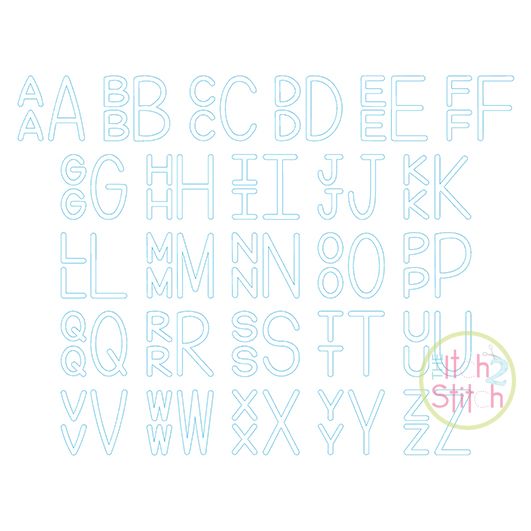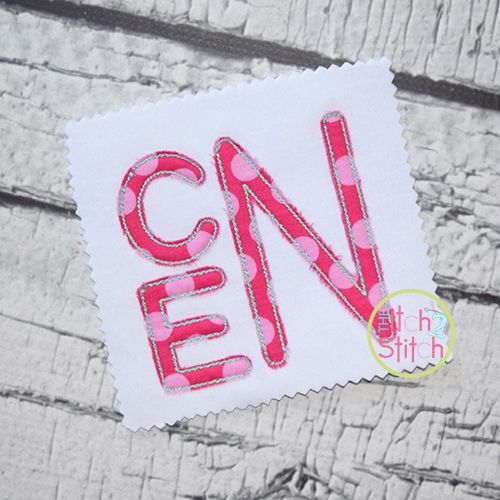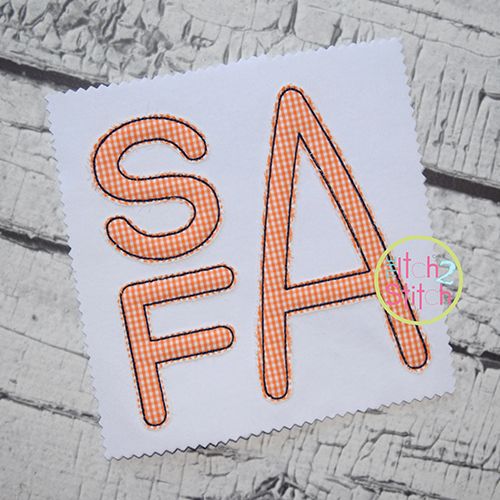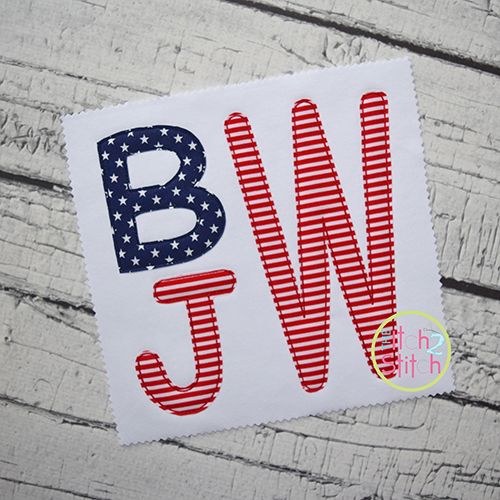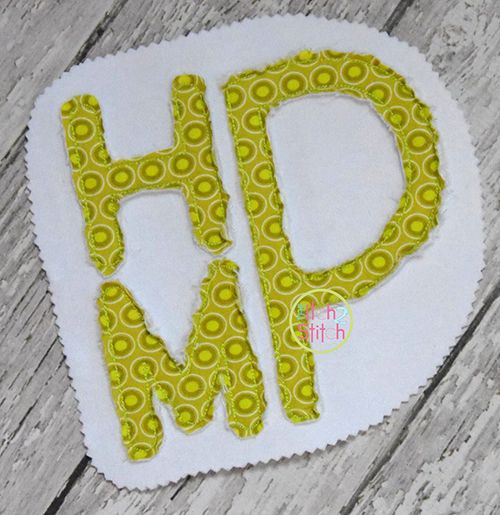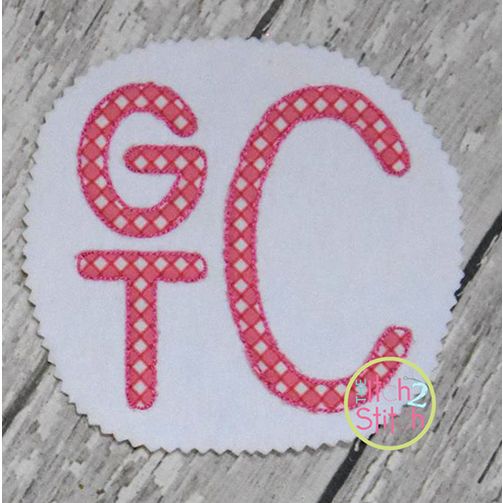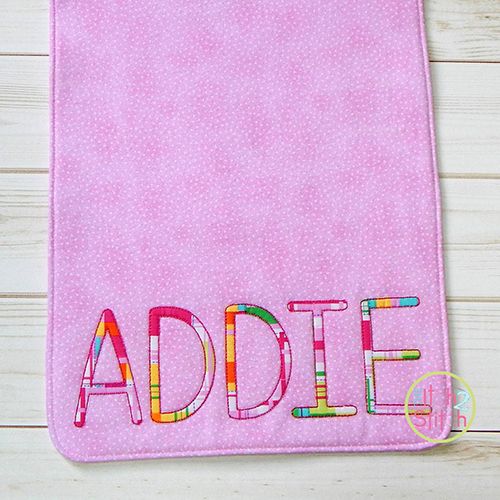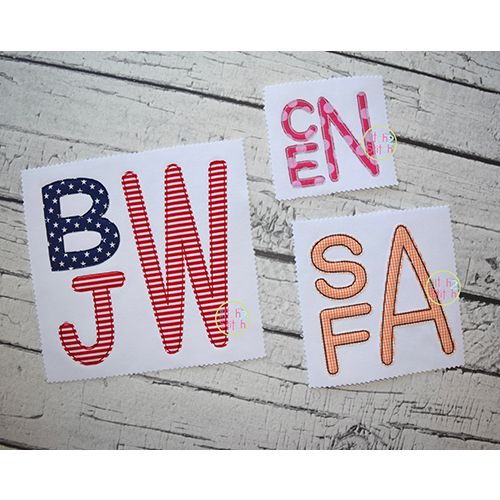
Stacked Sans Floss Stitch Applique Monogram Embroidery Font
You will receive all Aa-Zz letters(52 files) in nine sizes. This is a bean stitch applique. Each letter has three color stops: a placement stitch, and tack down stitch, and a final bean stitch. Use a layer of flannel under fabric and trim with a generous seam allowance for a raggy look; use a fusible product on fabric and trim close to bean stitch for a more polished look.
To create a square shaped monogram with this font, use two small "lowercase" letters stacked on the left and a large "capital" letter on the right from the same size folder.
BONUS: An extra Floss Outline-only version is included with purchase! It has twelve sizes (2", 2.5", 3", 3.5", 4", 4.5", 5", 5.5", 6", 6.5", 7", 7.5"). This is a three-pass bean stitch font originally designed to stitch on fabric, not card stock.